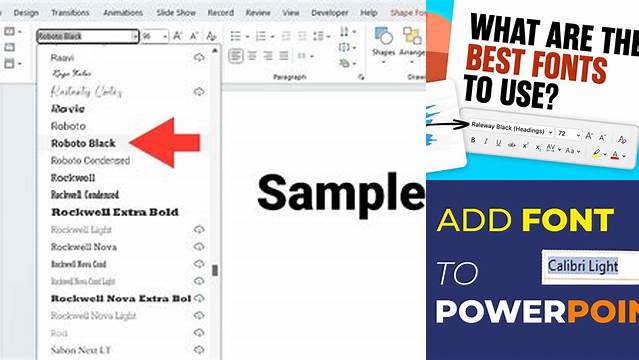
Download Fonts For PowerPoint: A Step-by-Step Guide
Hey guys! Ever felt like your PowerPoint presentations are looking a little…blah? One of the easiest ways to spice things up and make your slides visually engaging is by using custom fonts. Think about it: the right font can completely change the mood and message of your presentation. A sleek, modern font can convey professionalism, while a playful, handwritten font might be perfect for a more casual setting. But how do you actually go about downloading and using these fonts in PowerPoint? Don't worry, it's not as complicated as it sounds! In this article, we're going to walk you through the entire process, step by step, so you can start creating presentations that truly stand out. We'll cover everything from finding awesome fonts online to installing them on your computer and finally using them in your PowerPoint slides. So, grab your favorite beverage, get comfy, and let's dive in! We will explain all you need to know to download fonts and use them in PowerPoint.
Why Use Custom Fonts in PowerPoint?
Before we get into the how-to, let's quickly chat about why using custom fonts is such a great idea. Default fonts like Arial, Times New Roman, and Calibri are, well, default. Everyone uses them, and while they're perfectly functional, they don't exactly scream "unique" or "memorable.” Custom fonts, on the other hand, can help you:
- Enhance Visual Appeal: The right font can make your slides look more polished and professional. Think of it as the icing on the cake – it adds that final touch of finesse.
- Reinforce Your Brand: If you're creating presentations for a business or organization, using custom fonts that match your brand's identity can help create a cohesive and recognizable look. This is super important for brand consistency!
- Improve Readability: Some fonts are simply easier to read than others, especially when projected on a large screen. Choosing a clear and legible font ensures your audience can easily follow along with your presentation.
- Add Personality: Different fonts have different personalities. A bold, sans-serif font might convey confidence and strength, while a script font can add a touch of elegance and creativity. Choosing the right font can help you communicate the tone and style of your message.
- Stand Out from the Crowd: Let's face it, nobody wants their presentation to look like everyone else's. Using custom fonts is a simple way to make your slides visually distinct and memorable. It's all about making a lasting impression!
So, now that you're convinced of the power of custom fonts, let's get down to the nitty-gritty of finding and using them in PowerPoint. Trust me, it's a game-changer for your presentation game!
Finding Fonts Online
Okay, so you're ready to explore the world of custom fonts – awesome! The first step is finding some fonts that you love. The good news is, there are tons of websites out there offering both free and paid fonts. The key is knowing where to look and understanding the licensing terms (more on that later). Let's break down some popular options:
- Google Fonts: This is a fantastic resource, especially for beginners. Google Fonts offers a huge library of high-quality, open-source fonts that are completely free to use, even for commercial projects. The best part? They're super easy to browse and download. Plus, you can even preview them directly on the Google Fonts website to see how they'll look in different sizes and styles. For anyone starting their font journey, Google Fonts is the perfect place to begin. The fonts available are varied and the user interface is intuitive.
- DaFont: DaFont is another incredibly popular website with a massive collection of fonts. You'll find everything from quirky and playful fonts to elegant and sophisticated ones. However, it's important to pay close attention to the licensing terms on DaFont, as some fonts are free for personal use only, while others can be used commercially. Always double-check before using a font in a project that will be used for business purposes. With its extensive range, DaFont is a treasure trove for those looking for something specific or unique. The sheer volume of choices can be a little overwhelming, but with careful browsing, you're sure to discover some gems.
- Font Squirrel: If you're serious about font licensing, Font Squirrel is your best friend. This website only offers fonts that are 100% free for commercial use. That means you don't have to worry about any legal issues down the road. Font Squirrel also offers a handy "Font Identifier" tool that can help you identify a font you've seen elsewhere. Just upload an image of the font, and the tool will try to match it. This is an invaluable resource for designers and anyone who wants to ensure they're using fonts legally. The site is user-friendly and makes navigating the world of font licensing much simpler.
- Adobe Fonts: If you're an Adobe Creative Cloud subscriber, you have access to Adobe Fonts, a vast library of high-quality fonts that are included in your subscription. This is a huge perk, as you get access to some seriously professional-looking fonts without having to pay extra. Adobe Fonts seamlessly integrates with Adobe Creative Cloud apps like Photoshop, Illustrator, and InDesign, but you can also use them in PowerPoint. The integration with Creative Cloud makes it incredibly convenient for those already in the Adobe ecosystem. The quality and variety of fonts available are top-notch, making it a worthwhile option for professionals.
- Creative Market: Creative Market is a marketplace where independent designers sell their fonts and other design assets. You'll find a wide range of unique and creative fonts here, but they typically come with a price tag. However, the quality is often very high, and you're supporting independent artists. If you're looking for something truly special and aren't afraid to spend a little money, Creative Market is a great place to explore. The site offers a diverse range of styles, ensuring there's something for every project. Plus, buying from Creative Market means you're directly supporting the creative community.
When browsing for fonts, consider the overall style and tone of your presentation. Are you going for a professional, corporate look? Or something more casual and creative? Think about the message you want to convey and choose fonts that align with that message. And always, always check the licensing terms before using a font in your project. Nobody wants a copyright infringement headache!
Installing Fonts on Your Computer
Alright, you've found some amazing fonts that you're itching to use in your PowerPoint presentations. Now comes the crucial step: installing them on your computer. Don't worry, this is usually a pretty straightforward process, but it can vary slightly depending on your operating system (Windows or macOS). Let's break it down for both:
Windows
- Download the Font Files: When you download a font, it typically comes in a ZIP file. Unzip the file to reveal the font files. These files usually have extensions like
.ttf
(TrueType Font) or.otf
(OpenType Font). - Right-Click and Install: Locate the font files you just unzipped. Right-click on the file (or files, if there are multiple styles like bold and italic) and select "Install" from the context menu. Windows will automatically install the font for you.
- Alternative Installation Method: You can also install fonts by dragging and dropping them into the Fonts folder. To access this folder, open the Control Panel, go to "Appearance and Personalization," and then click on "Fonts.” Simply drag the font files into this folder, and Windows will install them.
- Restart Applications (If Needed): In some cases, you may need to restart PowerPoint (or any other application you want to use the font in) for the font to appear in the font list. This is because applications often load the font list when they start up, so they won't recognize newly installed fonts until they're restarted.
macOS
- Download the Font Files: Just like in Windows, fonts on macOS typically come in ZIP files. Unzip the file to reveal the font files (again, these will likely be
.ttf
or.otf
files). - Double-Click and Install: Double-click on the font file. This will open the Font Book application, which is macOS's built-in font management tool. Font Book will display a preview of the font.
- Click "Install Font": In the Font Book window, click the "Install Font" button at the bottom. macOS will install the font and make it available to all applications on your system.
- Resolve Duplicates (If Any): If you're installing a font that's already installed on your system (perhaps an older version), Font Book may ask you to resolve the duplicate. You can choose to disable the older version or keep both. In most cases, it's best to disable the older version to avoid conflicts.
- Restart Applications (If Needed): As with Windows, you may need to restart PowerPoint or other applications for the font to appear in the font list. This is especially true if the application was already running when you installed the font.
Once the font is installed, it should be available in the font list in PowerPoint and any other application that uses system fonts. If you're having trouble, double-check that the font is properly installed and that you've restarted the application if necessary. And remember, a little patience goes a long way in the world of font installation!
Using Downloaded Fonts in PowerPoint
Okay, the fonts are downloaded, installed, and ready to roll. Now for the fun part: actually using them in your PowerPoint presentation! This is where you get to see your hard work pay off and watch your slides transform. Here's how to do it:
- Open PowerPoint: Fire up PowerPoint and either open an existing presentation or create a new one. This is where the magic happens, so get ready to unleash your inner font aficionado!
- Select the Text: Choose the text box or text you want to change the font for. You can select a single word, a sentence, a paragraph, or even the entire text box. The flexibility here allows you to fine-tune the font for each element of your slide, ensuring visual harmony and emphasis.
- Access the Font Menu: In the "Home" tab on the PowerPoint ribbon, you'll find the font menu. It's usually a dropdown box that displays the current font name (like Calibri or Arial). This is your gateway to the world of fonts, where you can browse and select the perfect typeface for your text.
- Choose Your Font: Click on the font menu dropdown. A list of all the fonts installed on your computer will appear. Scroll through the list until you find the font you just installed. Remember, the fonts are usually listed alphabetically, so it should be relatively easy to locate your new treasure. If you have a lot of fonts installed, you might want to use the search bar at the top of the font menu to quickly find your font by name.
- Apply the Font: Once you've found your font, simply click on it. PowerPoint will instantly apply the font to the selected text. Voila! Your text is now sporting its new look, and you're one step closer to a stunning presentation.
- Adjust Font Size and Style (If Needed): After applying the font, you might want to adjust the font size, style (bold, italic, underline), or color to further enhance the look of your text. These options are also available in the "Home" tab, right next to the font menu. Experiment with different sizes and styles to achieve the perfect balance and readability. A well-chosen font size ensures that your text is legible from the back of the room, while the right style can add emphasis or create visual hierarchy.
Pro Tip: PowerPoint also has a handy feature called "Font Themes" that allows you to set default fonts for headings and body text. This can save you a lot of time and effort, especially if you're working on a long presentation. To access Font Themes, go to the "Design" tab and click on the "Fonts" dropdown. You can choose from a variety of pre-designed font pairings or create your own custom theme. Using Font Themes ensures consistency throughout your presentation, creating a polished and professional look.
And that's it! You've successfully downloaded, installed, and used a custom font in PowerPoint. Now you can go wild and experiment with different fonts to create presentations that are visually stunning and truly captivating. Remember, the right font can make all the difference in how your message is received, so choose wisely and have fun with it!
Okay, so you've gone through the process of downloading and installing fonts, but something's not quite right. Don't panic! Font issues can be frustrating, but they're usually easy to fix. Let's tackle some common problems and how to troubleshoot them:
- Font Doesn't Appear in PowerPoint: This is probably the most common issue. Here's what to check:
- Did you restart PowerPoint? As mentioned earlier, PowerPoint loads the font list when it starts up, so you need to restart the application for newly installed fonts to appear.
- Is the font properly installed? Double-check that the font is installed in the correct location on your computer (the Fonts folder in Windows, or Font Book in macOS). If you're not sure, try reinstalling the font.
- Is the font compatible with PowerPoint? Some fonts, especially older ones, may not be fully compatible with PowerPoint. Try using a different font or updating PowerPoint to the latest version.
- Font Looks Different in PowerPoint than Expected: Sometimes, a font might look different in PowerPoint than it does in the font preview or on the website where you downloaded it. This can be due to a few factors:
- Font rendering issues: PowerPoint's font rendering engine might not display the font perfectly. This is especially common with complex or decorative fonts.
- Missing font styles: The font you're using might not have all the styles (bold, italic, etc.) that you're trying to apply. Try using a different font style or choosing a font that has the styles you need.
- Font substitution: If PowerPoint can't find the exact font you're using, it might substitute a similar font. This can happen if the font is not properly installed or if the presentation is opened on a computer that doesn't have the font installed.
- Font Displays as Squares or Boxes: This usually indicates a problem with the font file itself. It could be corrupted or incomplete. Try downloading the font again from a different source or using a different font altogether.
- Presentation Looks Different on Another Computer: This is a classic font problem. If you use custom fonts in your presentation and then open it on a computer that doesn't have those fonts installed, PowerPoint will substitute the fonts with default fonts. This can drastically change the look of your presentation. To avoid this, you have a few options:
- Embed the fonts in the presentation: PowerPoint allows you to embed the fonts you're using in the presentation file. This ensures that the fonts will display correctly on any computer, even if the fonts are not installed. To embed fonts, go to File > Options > Save and check the "Embed fonts in the file" box. Be aware that embedding fonts can increase the file size of your presentation.
- Convert the text to images: Another option is to convert the text in your presentation to images. This will preserve the appearance of the text, but it also means that the text will no longer be editable. To convert text to images, you can take screenshots of your slides or use a PDF converter to save your presentation as a PDF.
- Use common fonts: The simplest solution is to stick to common fonts that are likely to be installed on most computers, such as Arial, Times New Roman, or Calibri. While this might not be as visually exciting, it ensures that your presentation will look consistent across different devices.
Troubleshooting font issues can sometimes feel like a puzzle, but with a little patience and these tips, you should be able to solve most problems. Remember, the key is to systematically check each potential cause and try different solutions until you find the one that works. And if all else fails, there's always the option of reaching out to online forums or tech support for help.
So there you have it, guys! You've now got the knowledge and skills to download fonts and use them like a pro in PowerPoint. From spicing up your slides to reinforcing your brand, custom fonts can truly elevate your presentations and make them stand out from the crowd. Remember, the key is to choose fonts that align with your message and style, and always double-check those licensing terms. Don't be afraid to experiment and have fun with it! The world of fonts is vast and exciting, so go out there and discover some hidden gems that will make your presentations shine. And with the troubleshooting tips we've covered, you'll be well-equipped to handle any font-related hiccups that might come your way. Now go forth and create some visually stunning presentations that will leave your audience in awe!